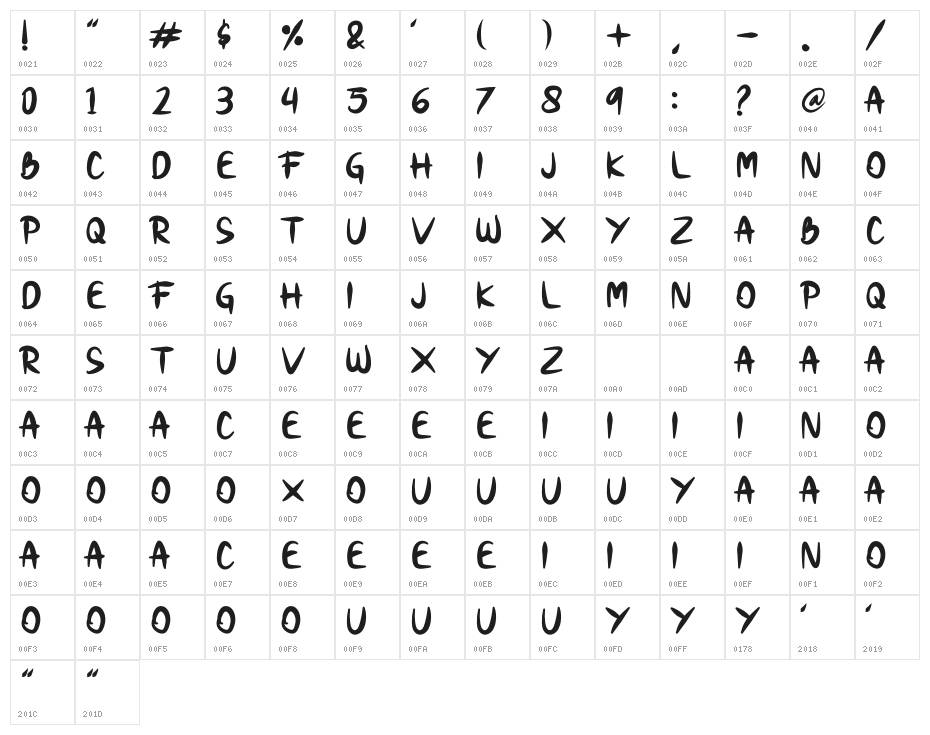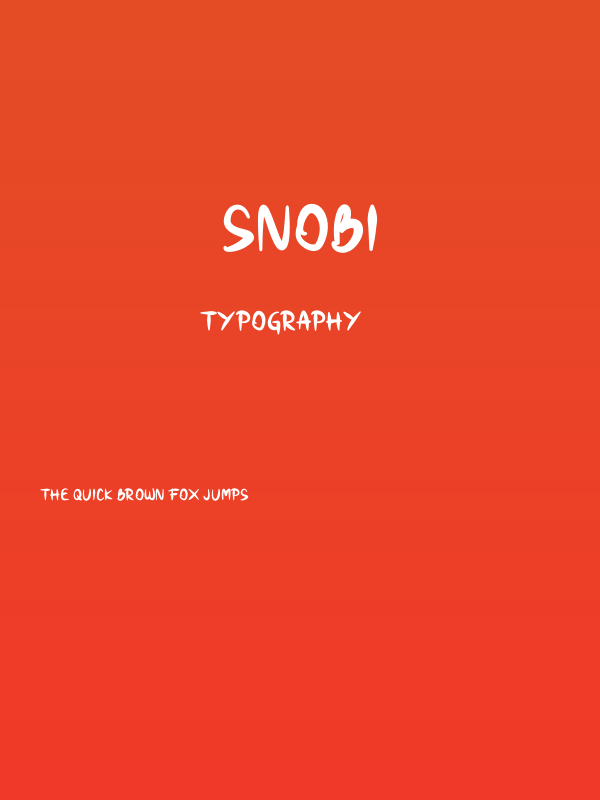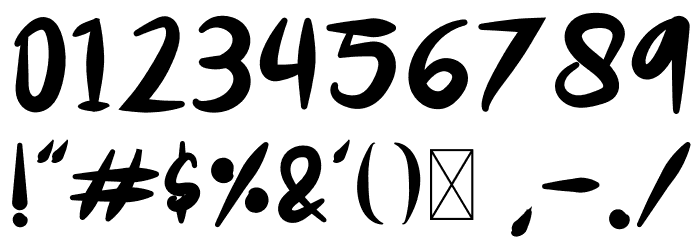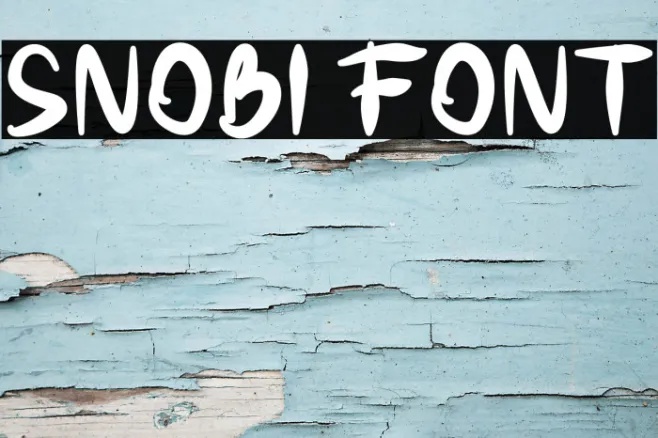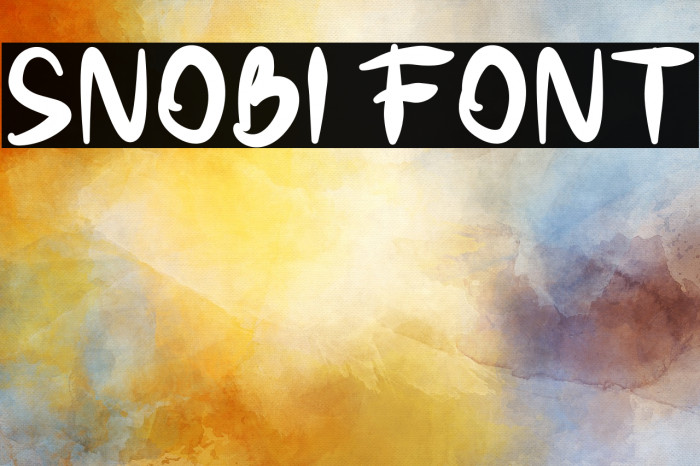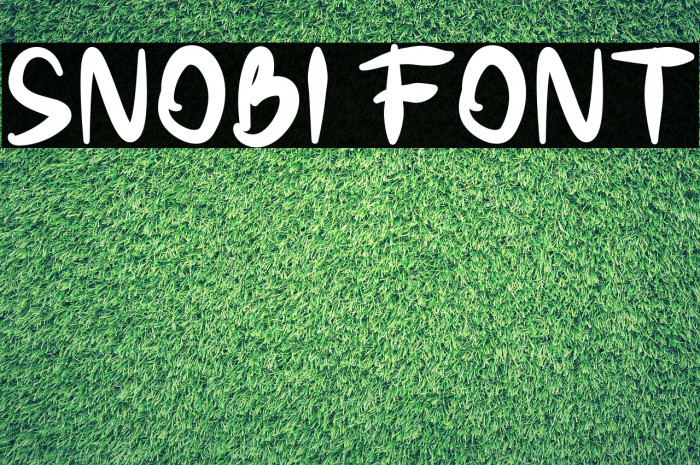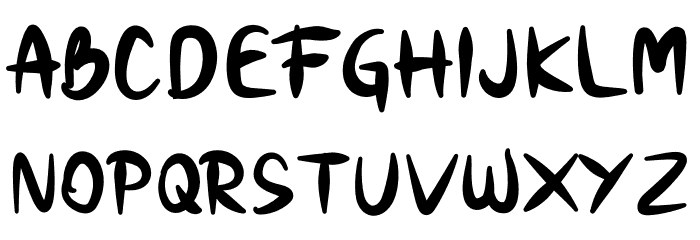
Snobi Font
Snobi Description
This font exhibits a playful and energetic style, characterized by its bold and slightly irregular strokes. The letters have a hand-drawn appearance, with a dynamic flow that suggests movement and spontaneity. The uppercase and lowercase letters maintain a consistent style, with rounded edges and varying stroke widths that add to its informal charm. The numerals and special characters complement the alphabet with similar boldness and quirky design. This font is ideal for projects that require a personal touch or a casual, friendly vibe.
| Proposed Projects | Great for children's books, casual branding, playful posters, and creative social media graphics. |